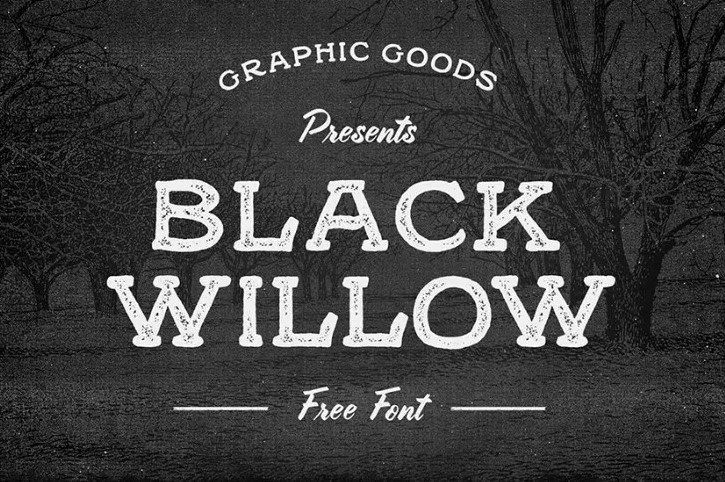
Introducing the Black Willo Font, a free rough typeface featuring vintage styles and hand-drawn textures. It comes in two distinct and beautiful styles, perfect for enhancing any complex design layouts, making them stunning and visually striking.
This font will inspire you to make all types of modern and latest designs, this font has brilliant designs and regular styles the first one is Regular and the second one is Rough. The typeface contains beautiful lettering and characters.
The font can be used with the combination of fantastic font, which is the best thing for designing gorgeous designing layouts. Many designers using this font for making elegant designs.
View Of Black Willow Font
The font works well for any size of headings and middle text content. It is perfect for creating titles, listing and website headings
This bold and brought typeface font that can be used with myriad pro font which has a popular texture so that can also be used in pairing also.
| Style | Rough |
| Designer | Lauren Lee |
What Type of Font Is Black Willow?
The Black Willow Font is the famous and amazing typeface which was product of Lauren Lee.